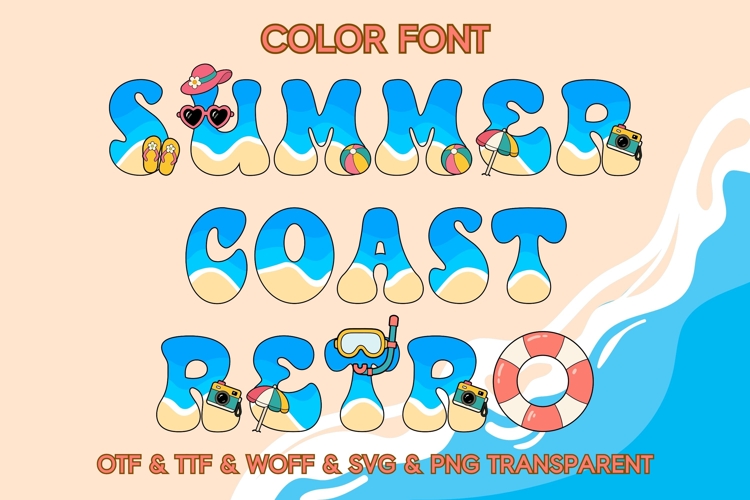
Summer Coast Retro Font
Bring the joy of summer to your designs with this fun and playful Summer Coast Color Font! Inspired by beach vibes, ocean waves, and tropical holidays, this font features vibrant blue sea tones, sandy textures, and cute summer elements like sunglasses, umbrellas, cameras, flip-flops, and more.
Perfect for summer projects, kids designs, branding, posters, stickers, social media, Cricut crafts, and vacation-themed creations, this font adds a cheerful and eye-catching touch to any artwork. Make your designs shine with sunny, beachy vibes 🌊☀️🍹
Perfect for greeting cards, children’s crafts, party invitations, stickers, and holiday merchandise, this color typeface comes in OTF, TTF, WOFF, SVG, and PNG formats for versatile use. Its bright palette and adorable design bring a joyful energy to every creation. Each glyph is richly detailed and rendered in color, making it ideal for projects where character and personality matter.